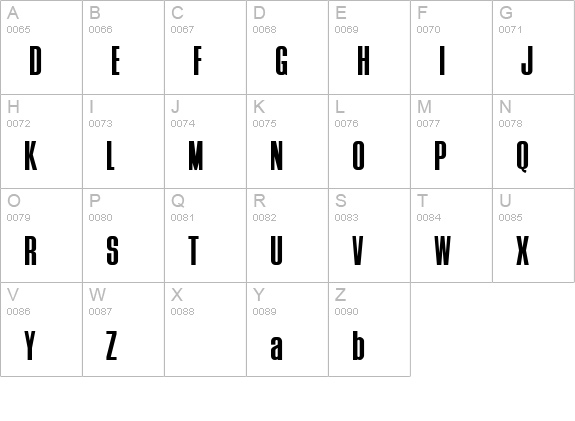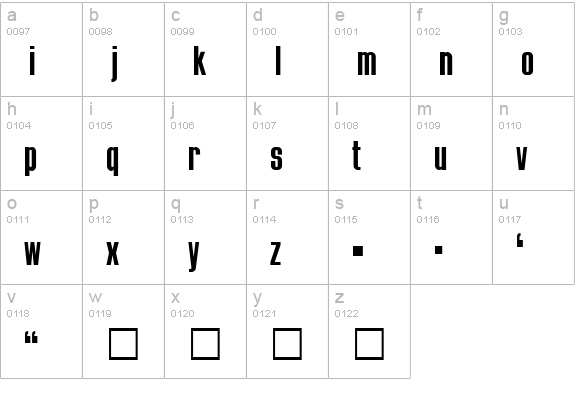
NewCompact Font Details
Introducing NewCompact font - a sleek and modern typeface that is perfect for a wide range of design projects. With its clean lines and contemporary style, NewCompact exudes professionalism and sophistication. This versatile font is ideal for branding, advertising, web design, and more. The best part? NewCompact is completely free to download at FontsMarket.com! You can add this stylish font to your collection without breaking the bank. Whether you're creating a logo, designing a website, or working on a print project, NewCompact will elevate your work to the next level. Don't miss out on this fantastic opportunity to enhance your designs with the elegant and timeless NewCompact font. Download it for free today at FontsMarket.com and start creating stunning visuals that will leave a lasting impression.